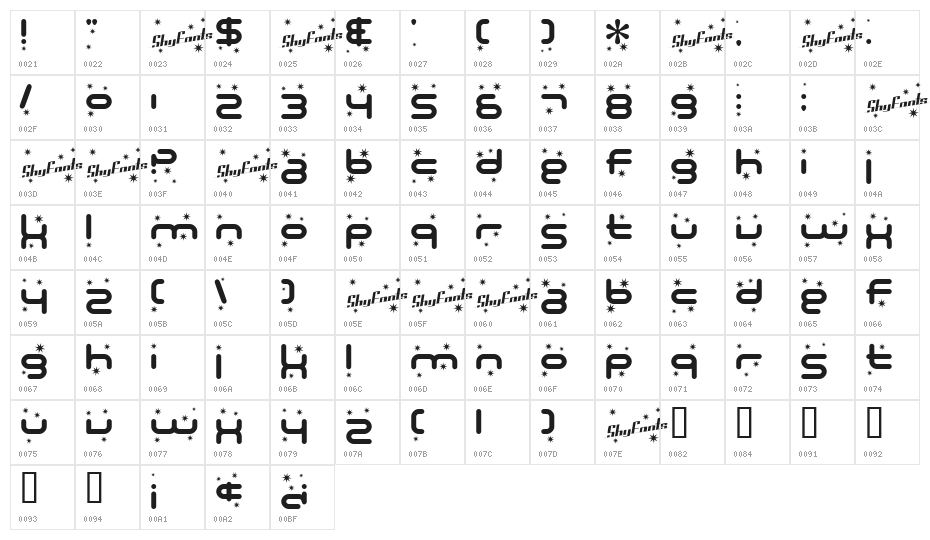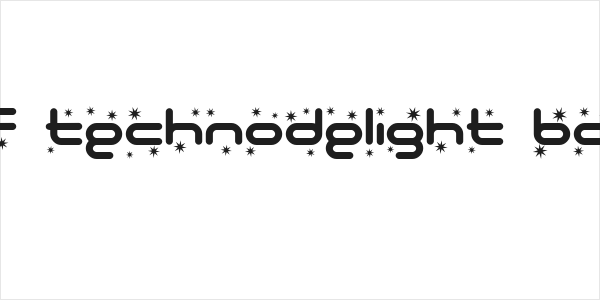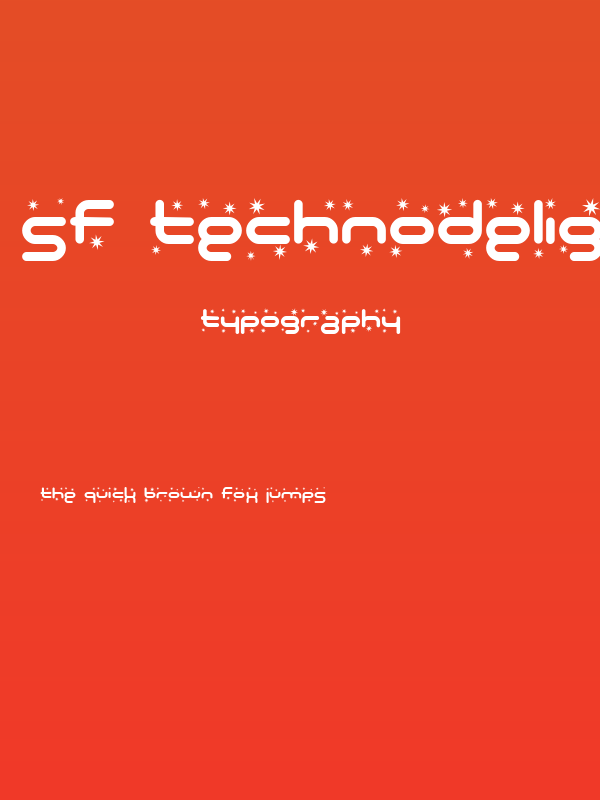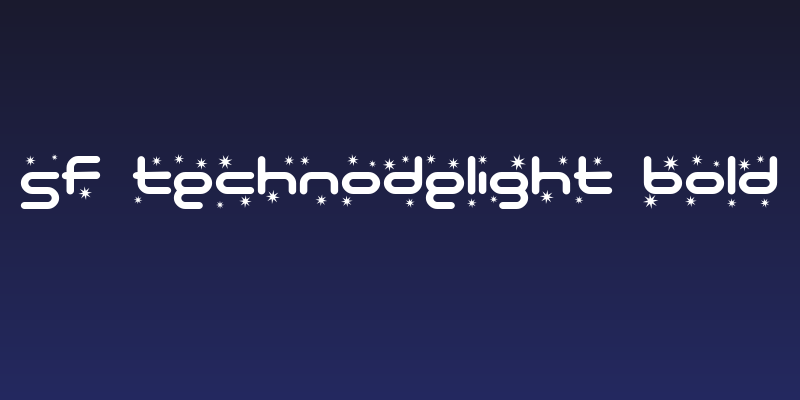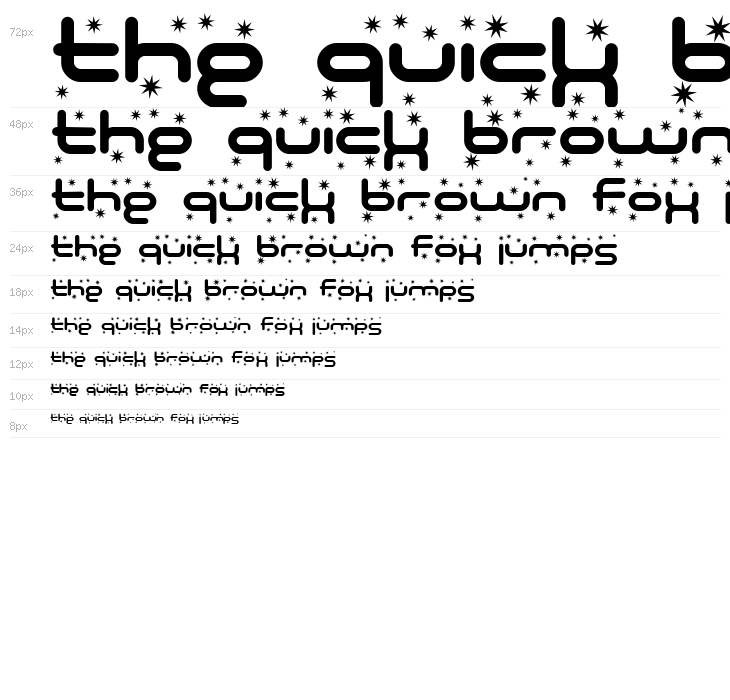
SF Technodelight Bold Font
SF Technodelight Bold Description
This font features a futuristic and bold design with rounded edges and a distinct geometric style. The characters are uniform in height, providing a cohesive look across the alphabet. The font includes both uppercase and lowercase letters, numbers, and a selection of special characters. Its bold weight and modern aesthetic make it suitable for projects that require a strong visual impact. The rounded forms and consistent line thickness contribute to its unique and eye-catching appearance, making it ideal for creative and tech-oriented designs.
| Proposed Projects | Ideal for technology branding, sci-fi themed projects, video game interfaces, and modern advertising campaigns. |